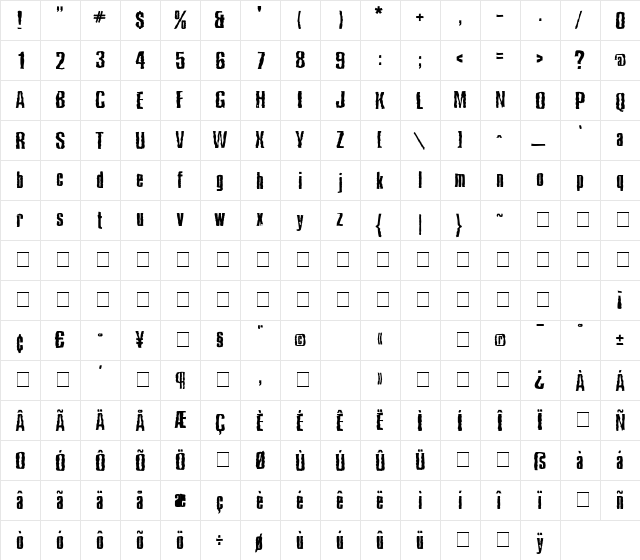
Blue Cake Regular
Design Context for Blue Cake Typeface
Blue Cake is a composed and adaptable typeface that performs quietly and consistently across a wide range of design contexts.